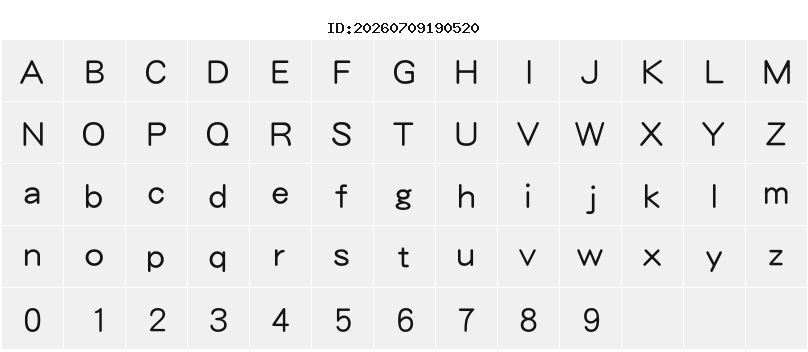
About DFPYuanW7-GB5.ttf
DFPYuanW7-GB5.ttf is a modern, elegant sans-serif font designed for ultimate readability and visual harmony. Perfect for branding, headlines, web design, and print materials.